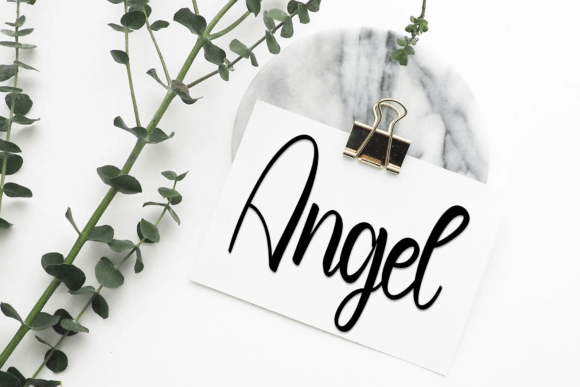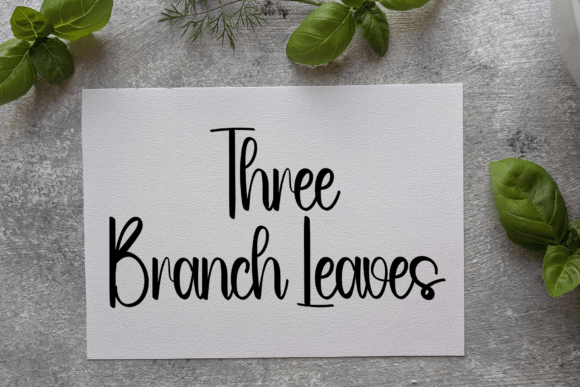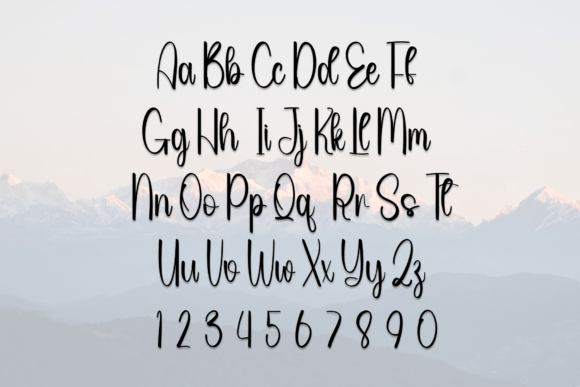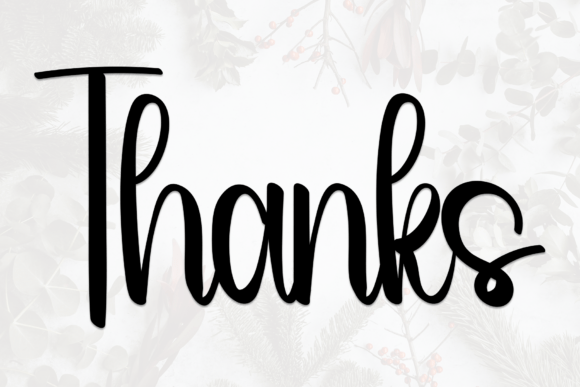
Introducing the Christmas Bunny Font: A Sweet and Beautiful Handwritten Delight
Are you looking for a font that captures the essence of the holiday season? Do you want to add a touch of whimsy and charm to your design projects? Look no further than the Christmas Bunny Font, a sweet and beautiful handwritten font that’s sure to delight designers and crafters alike.
A Font that Dances with Joy
The Christmas Bunny Font features characters that dance along the baseline, giving it a playful and carefree feel. This unique characteristic makes it perfect for designs that require a touch of personality and whimsy. Whether you’re creating holiday cards, gift tags, or festive posters, this font is sure to add a cozy accent to your project.
The Christmas Bunny Font is a versatile font that’s perfect for designers and crafters who want to add a personal touch to their projects. With its handwritten feel, it’s ideal for:
• Holiday cards and invitations
• Gift tags and wrapping paper
• Festive posters and flyers
• Crafting projects, such as scrapbooking and journaling
Why Choose the Christmas Bunny Font?
So, why choose the Christmas Bunny Font over other fonts? Here are just a few reasons:
• Unique and eye-catching: The dancing characters of the Christmas Bunny Font make it stand out from other fonts, ensuring your design project won’t go unnoticed.
• Cozy and inviting: The handwritten feel of the font creates a warm and welcoming atmosphere, perfect for holiday designs.
• Easy to read: Despite its playful nature, the Christmas Bunny Font is easy to read, making it perfect for designs that require a clear message.
• Versatile: The font can be used for a variety of design projects, from digital graphics to print materials.
Tips for Using the Christmas Bunny Font
To get the most out of the Christmas Bunny Font, here are a few tips:
• Use it sparingly: While the font is beautiful, it’s best to use it sparingly to avoid overwhelming the design. Use it for headings or key phrases to add emphasis.
• Pair it with complementary fonts: Pair the Christmas Bunny Font with complementary fonts, such as a clean sans-serif font, to create visual interest.
• Experiment with colors: The font looks great in traditional holiday colors, such as red and green, but don’t be afraid to experiment with other colors to create a unique look.